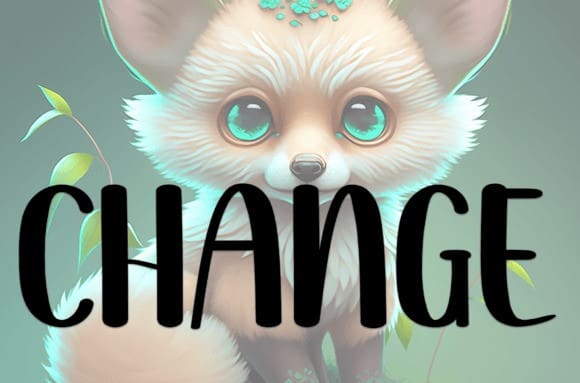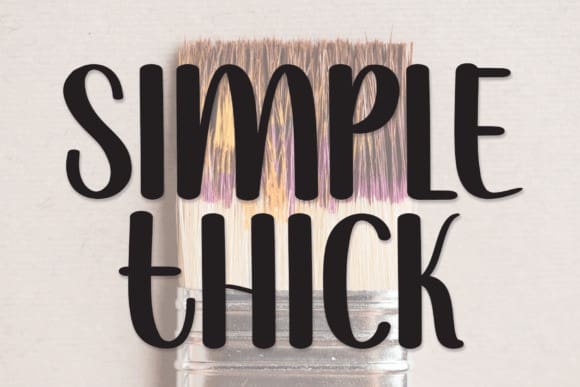
Simple Thick Font
Simple Thick Font is a sweet and friendly handwritten font. Fun and relaxed, this font is ideal for writing wedding invitations, cards, or any other design that might need a lovely touch!